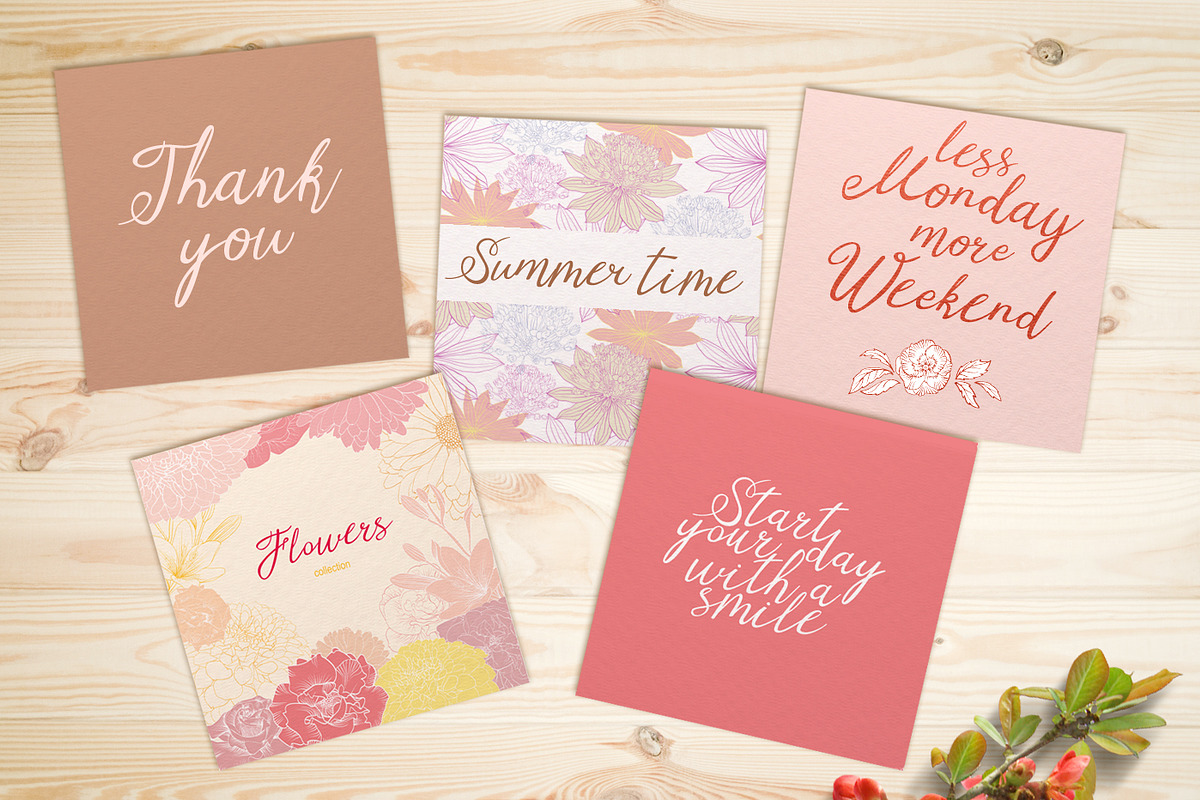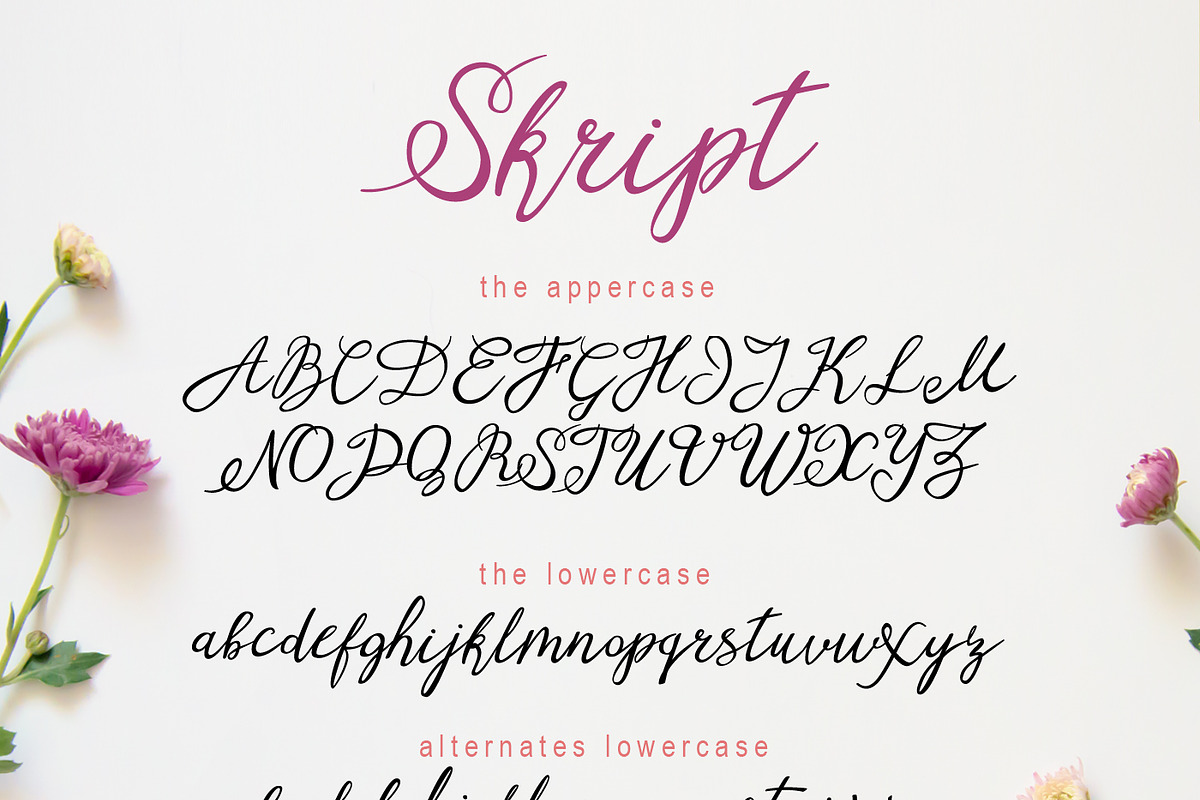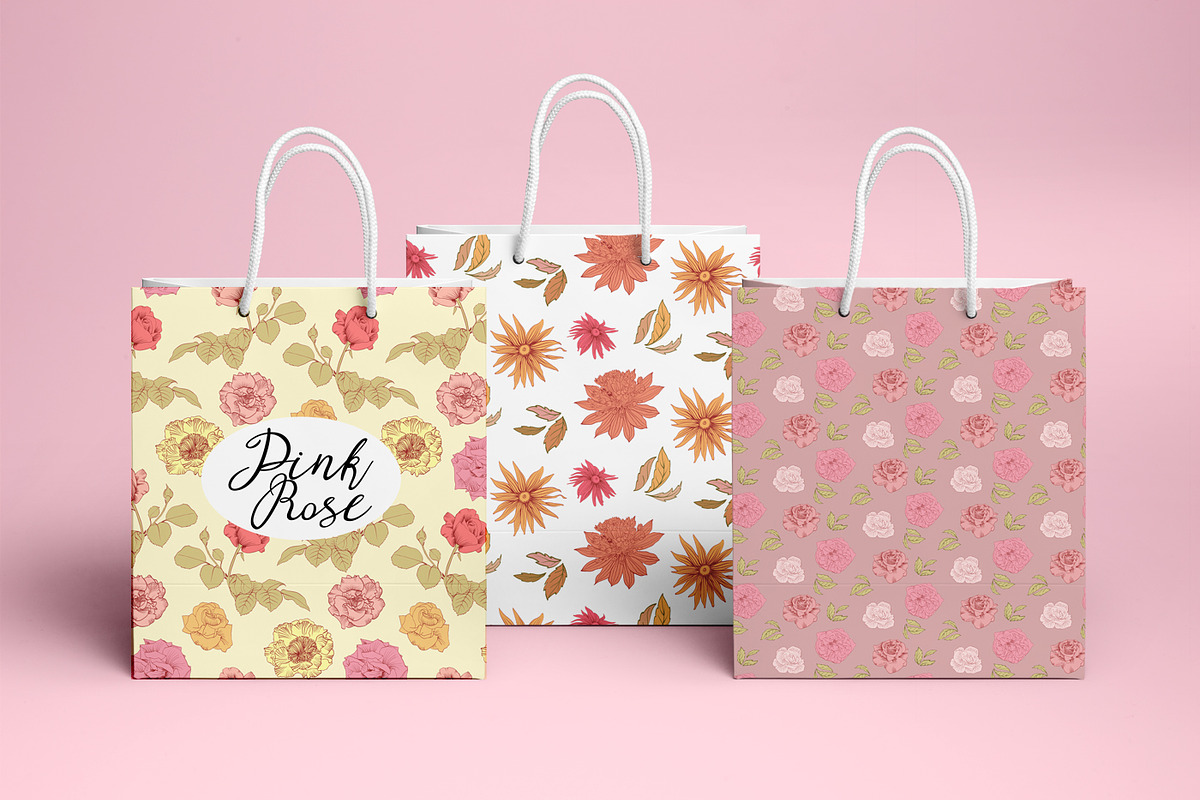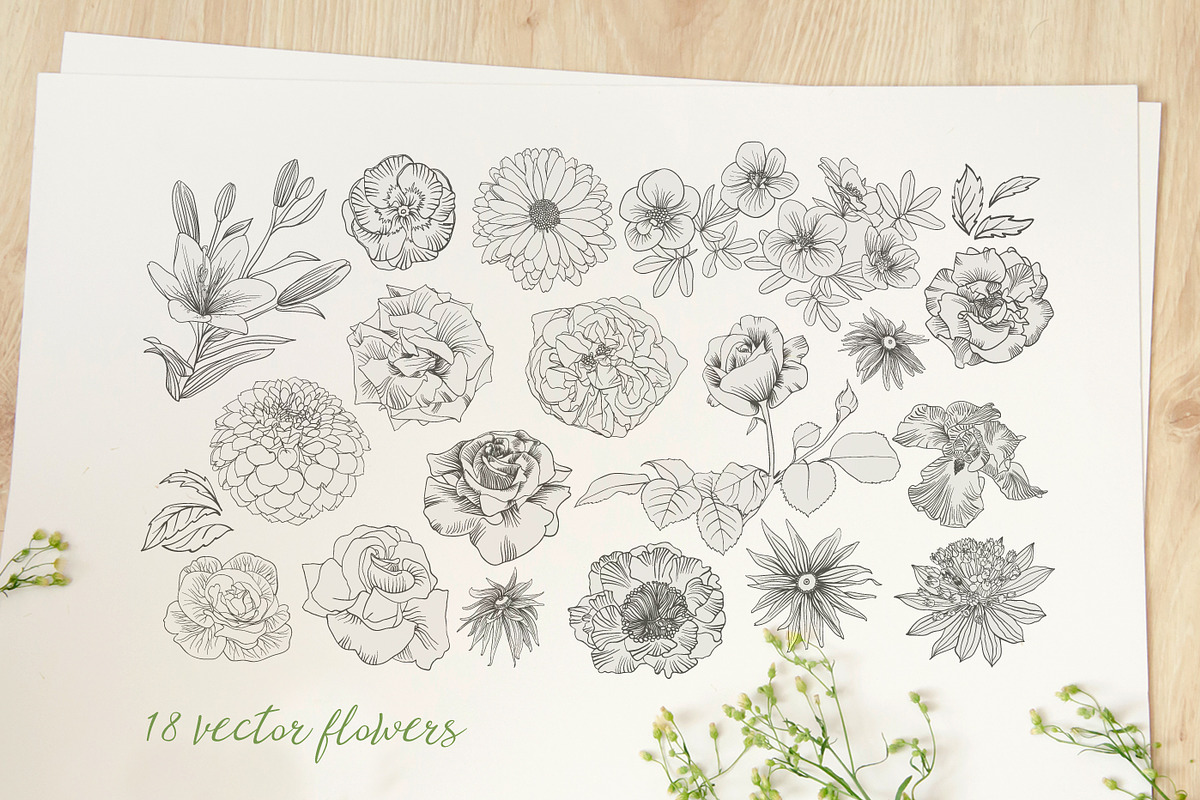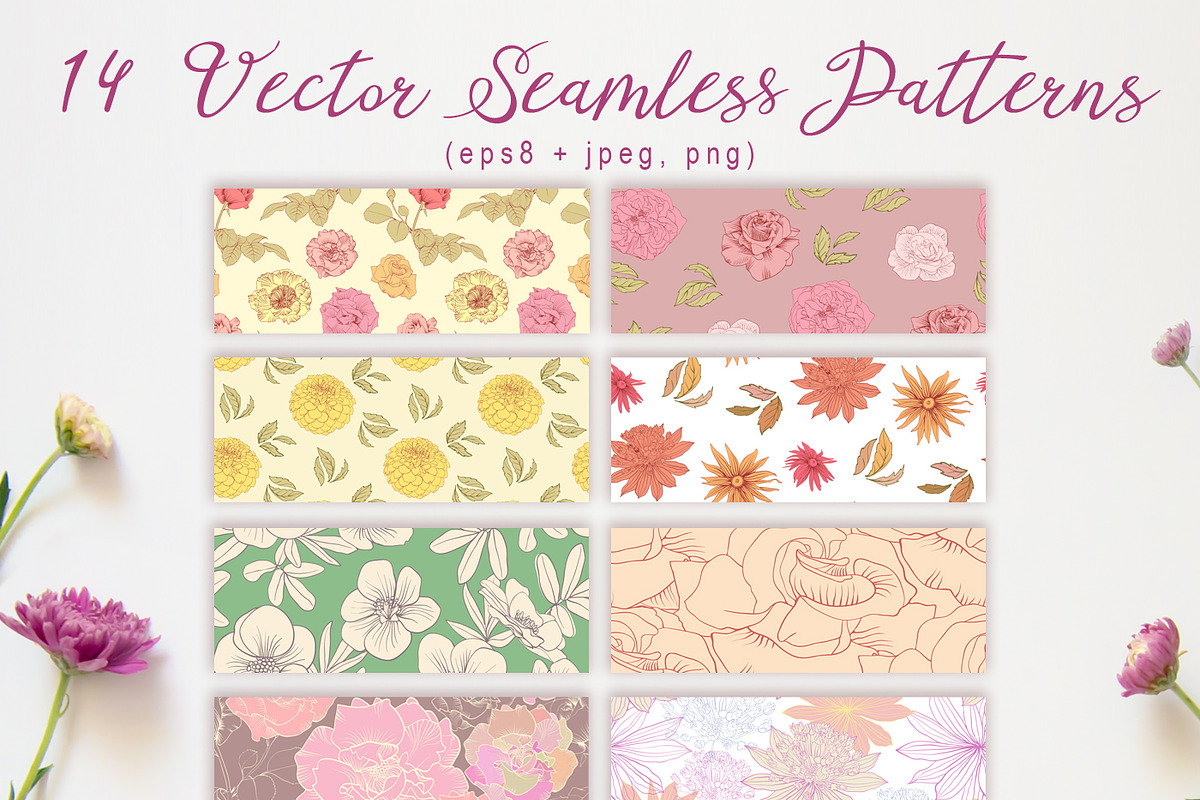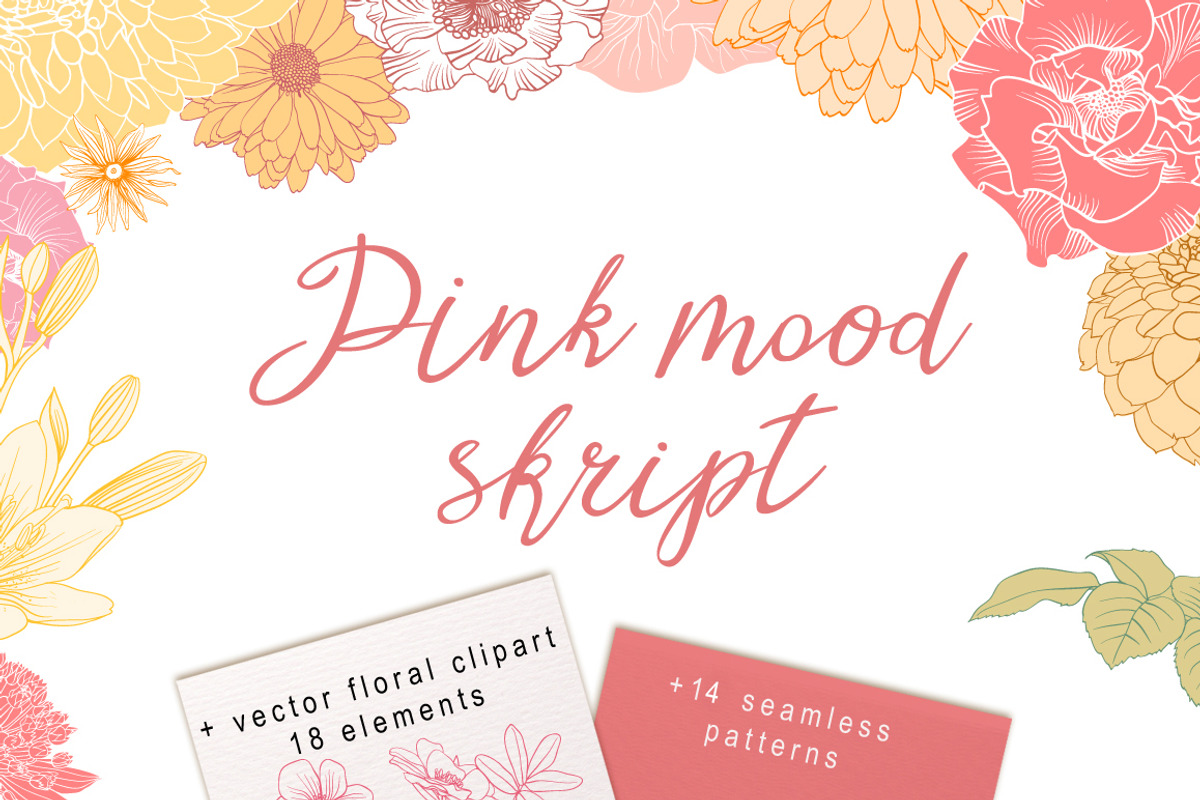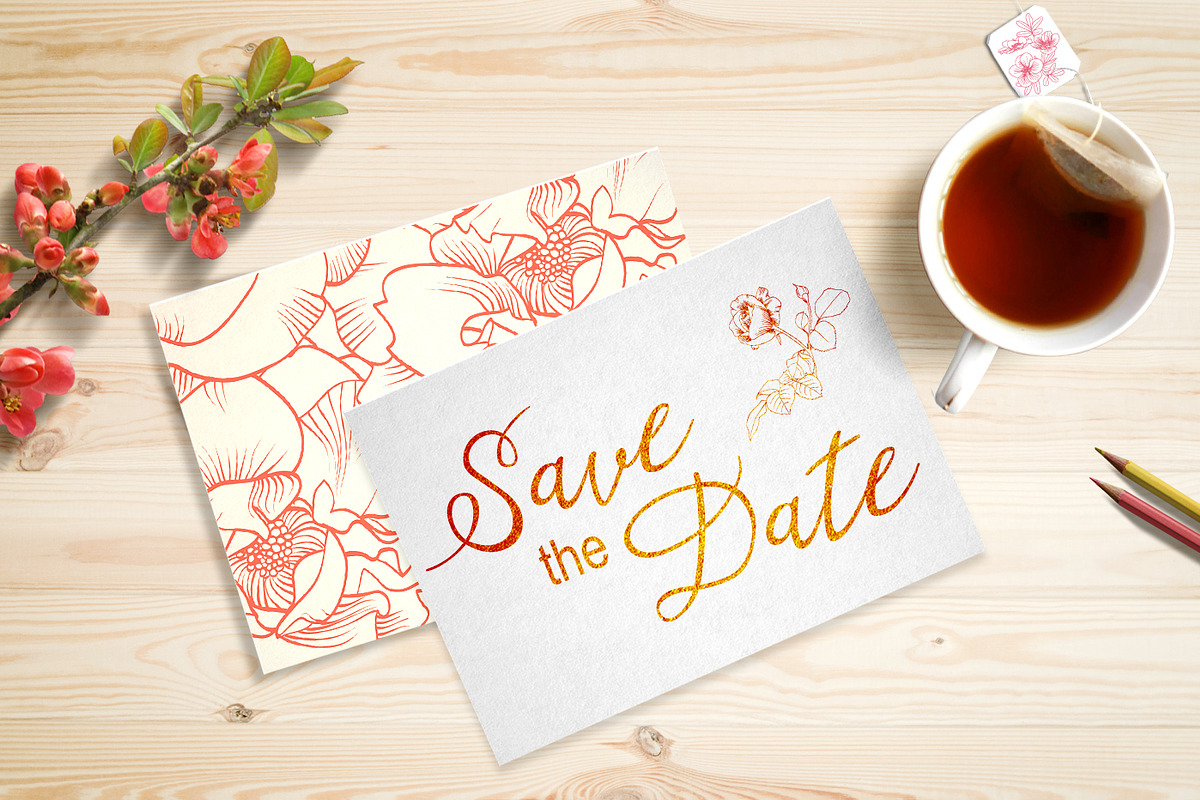
Pink mood set. Font & patterns.
- Pink mood script comes with a complete set of lowercase alternates, which allows you to create even more authentic custom-feel text.
Thanks for checking out Pink mood set! A elegant script font with patterns and floral elements, allowing you to create beautiful hand-made typography in an instant.